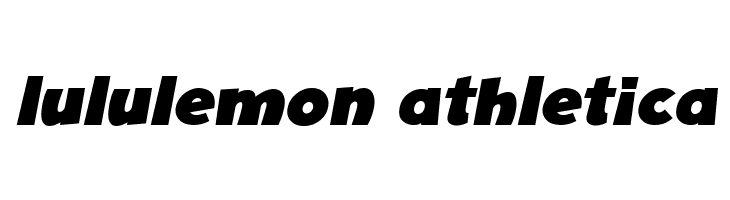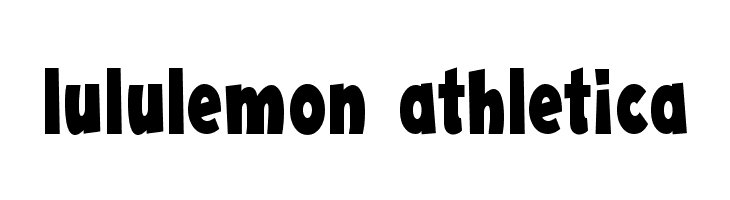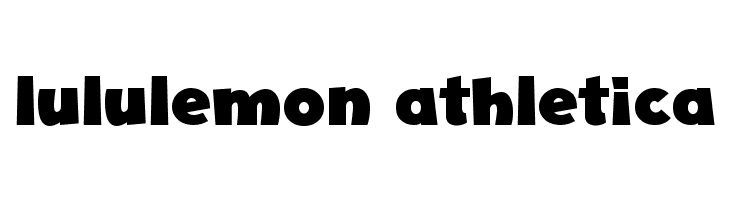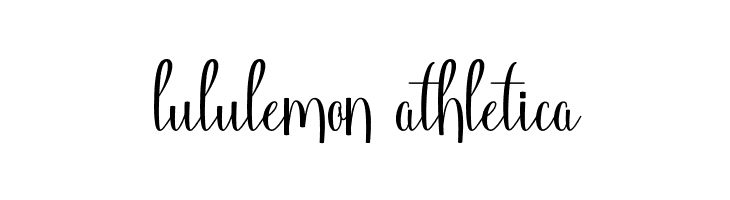
A dynamic, calligraphic font with sweeping curves and sharp terminals.
A bold, flowing script font with elegant curves and dramatic swashes.
A distressed, grunge-style serif font with a vintage, edgy appearance.
A bold, geometric font with a strong visual impact.
A modern, geometric font with rounded edges and a futuristic appeal.
A bold, rounded font with a modern and playful style.
A bold, italicized font with smooth curves and a dynamic, playful style.
A dynamic italic font with smooth curves and sharp angles, exuding elegance and modernity.
A futuristic, outlined font with geometric shapes and rounded edges.
A modern, italic, outlined font with a dynamic and decorative style.
An elegant script font with flowing, cursive characters and refined details.
A sophisticated script font with flowing, interconnected letters and elegant flourishes.
A bold, playful font with a 3D striped pattern and rounded edges.
A bold, slanted font with a dynamic and energetic style.
Illustrations of various aeroplanes in a structured grid format.
A bold, angular font with a futuristic and dynamic style.
A sleek, futuristic font with geometric elements and clean lines.
A bold, expressive brush-style font with a dynamic, hand-painted look.
A bold, outlined font with a modern and playful aesthetic.
A bold, graffiti-style font with angular, dynamic forms and a three-dimensional effect.
Bold graffiti-style handwritten font with energetic, thick strokes.
Bold, graffiti-style symbol font with playful, abstract shapes.
Bold graffiti-style font with dripping paint effects.
Graffiti-style symbol font with bold, expressive shapes.
Graffiti-style script font with bold, energetic strokes and spray paint effects.
Urban graffiti-style font with bold, spray-painted strokes.
Graffiti-style symbol font with bold, spray-paint effects.
Graffiti-style decorative symbol font with bold, hand-drawn shapes and spray-paint effects.
A futuristic, angular font with a bold, sci-fi aesthetic.